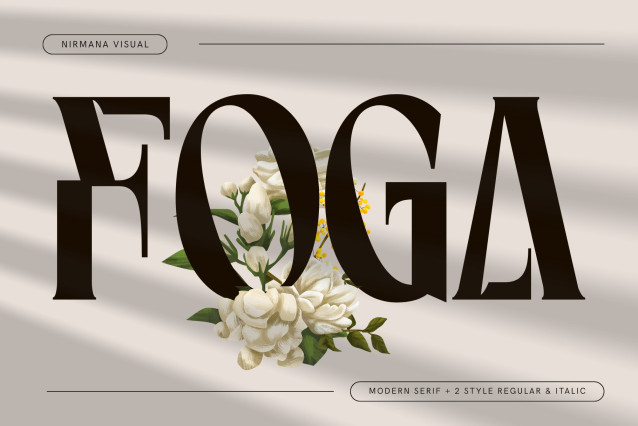
Foga Font
Foga Font is a classic serif typeface, which exudes elegance and class. With its bold, bold letters, contrasting between sharp and bold, and delicate serif details, this font is reminiscent of heritage and classy designs. It is suitable for use in headlines, logos or printed products that need to convey prestige and timeless beauty.